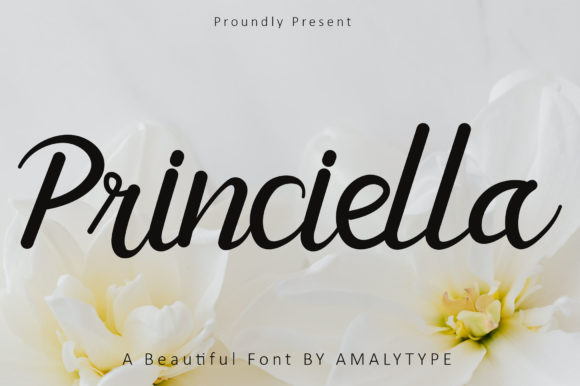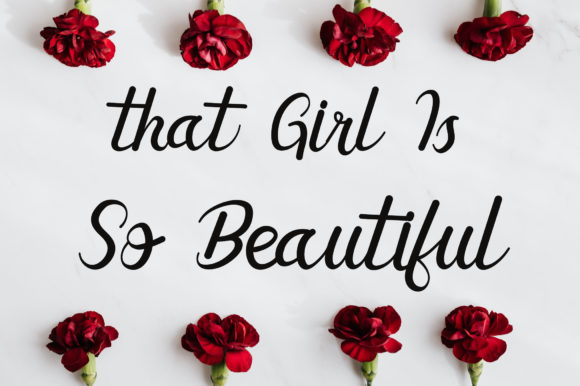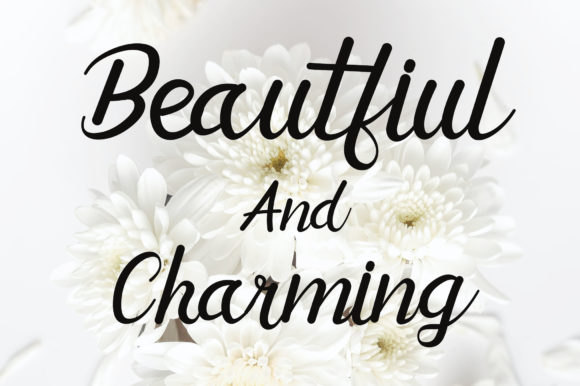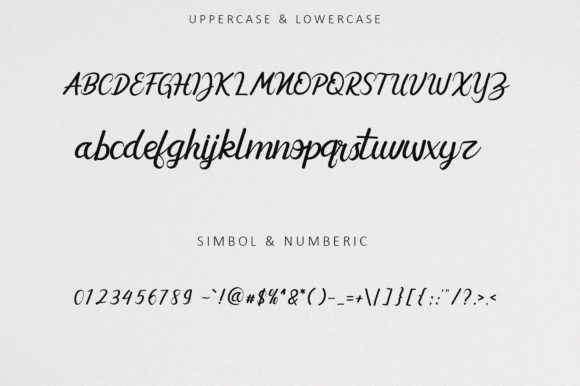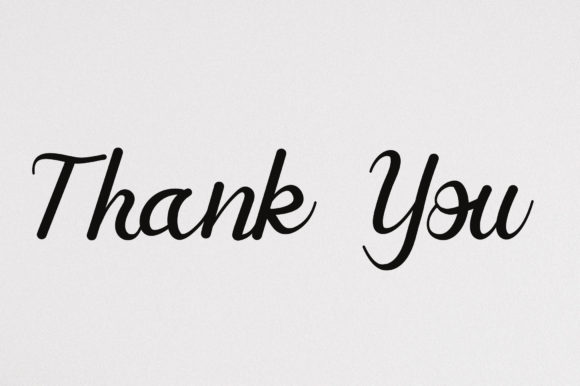
About Princiella Font
Princiella is a beautiful and light handwritten font with a unique feel and a stunning impact. It will add a luxury spark to any design project that you wish to create!